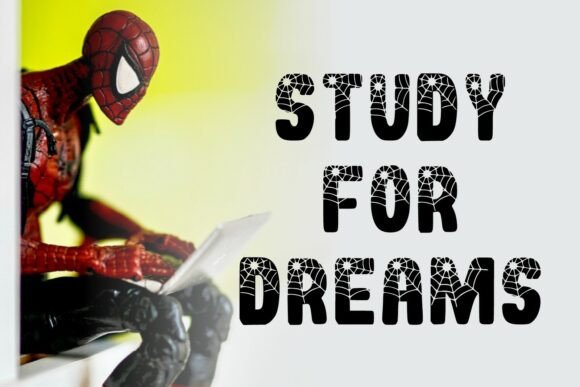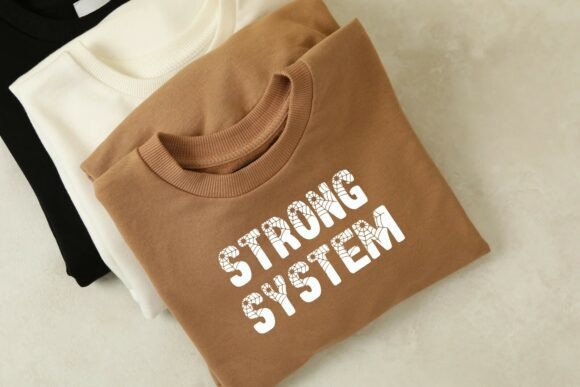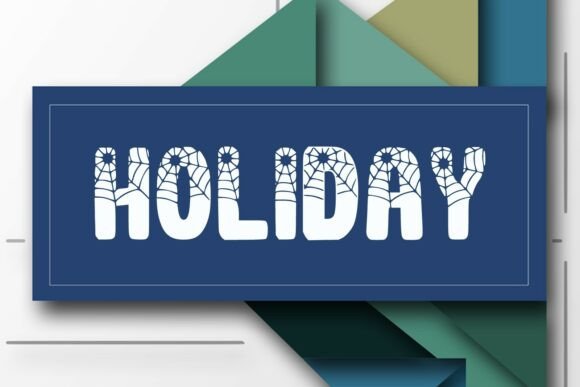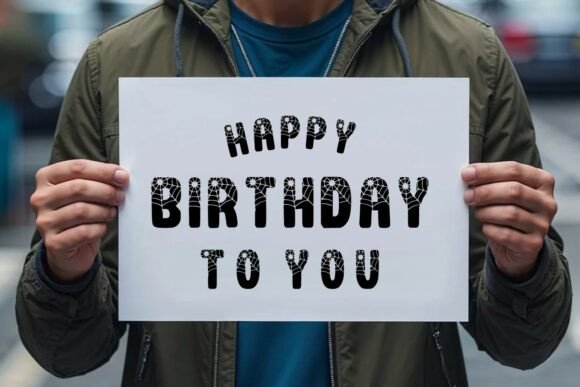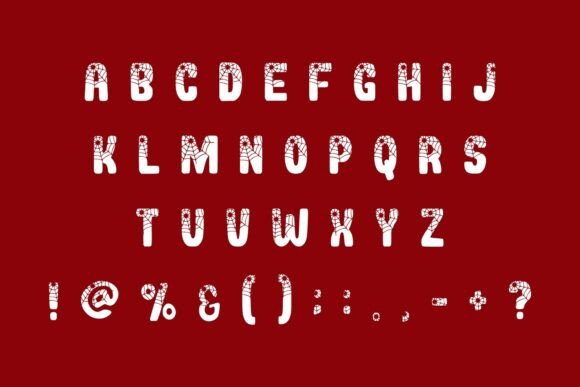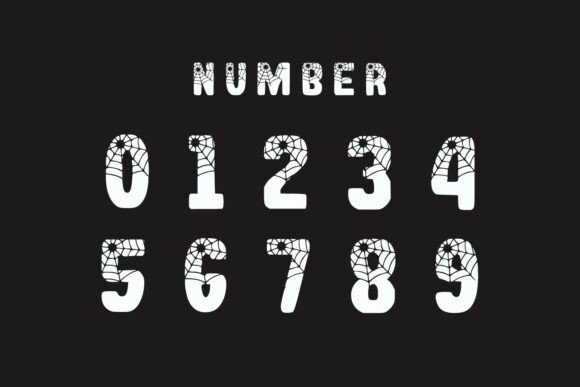
The Heroic Font That Saved My Design Project: A Deep Dive into Heroes Spider Font
I still remember the design project that had me stuck in a font rut. I was working on a branding project for a new coffee shop, and I just couldn’t find the right font to capture their quirky yet friendly vibe. That was until I stumbled upon Heroes Spider Font. It was like a superhero swooping in to save the day! ✨ In this article, I’ll share my love for this bold and quirky display font, its features, and how to make the most of it in your designs.
- ✅ Versatility: Heroes Spider Font is incredibly versatile, making it perfect for a wide range of contexts, from branding and advertising to crafting and DIY projects.
- ✨ Unique Character: This font has a friendly feel that’s hard to find in other display fonts. It’s quirky, yet approachable, making it perfect for designs that need a bit of personality.
- 🔍 Legibility: Despite its bold nature, Heroes Spider Font remains surprisingly legible, even at smaller sizes.
While Heroes Spider Font is amazing, it’s not perfect. Here are a few things to keep in mind:
- ⚠️ Overuse: Because it’s so bold and attention-grabbing, it’s easy to overuse Heroes Spider Font. Make sure to balance it with other fonts or use it sparingly to avoid overwhelming your design.
- 🤔 Pairing Challenges: Due to its unique style, Heroes Spider Font can be a bit tricky to pair with other fonts. Experiment with different combinations to find the perfect match.
The Story Behind Heroes Spider Font
While I couldn’t find any information on the designer’s inspiration, I like to imagine that Heroes Spider Font was created by a designer who wanted to bring a bit of superhero magic to the world of typography. Perhaps they were inspired by the bold, colorful world of comic books and wanted to create a font that captured that same sense of excitement and adventure.
| Font Name | Heroes Spider Font |
| Author | riki.studio |
Q: What makes Heroes Spider Font so versatile?
A: Heroes Spider Font has a friendly feel that’s hard to find in other display fonts. Its bold nature and quirky style make it perfect for a wide range of contexts, from branding and advertising to crafting and DIY projects.